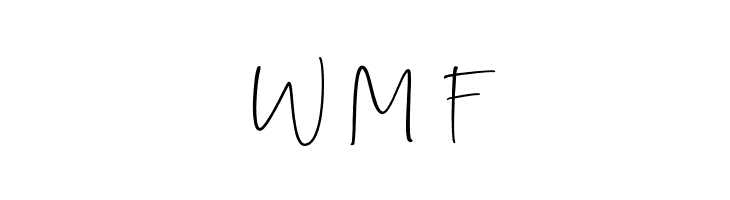
An elegant script font with flowing, cursive strokes and graceful curves.
A lively and dynamic script font with elegant, flowing characters.
A casual, elegant handwritten script with fluid strokes.
A flowing, cursive font with an elegant, handwritten style.